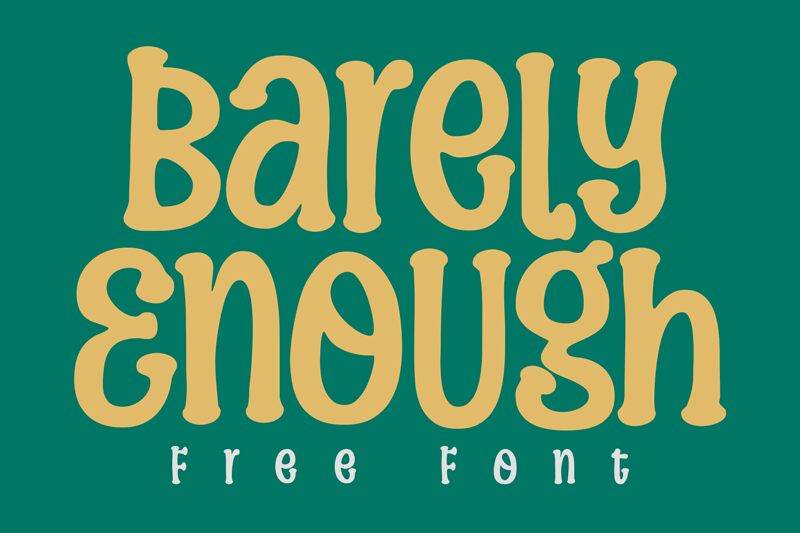
Barely Enough Regular
Barely Enough font is designed by Niskala Huruf. Whimsical and playful in every sense of the word, Barely Enough feels reminiscent of a more carefree spirit and simpler days of youth. As a bold handwritten display face, an informal style sets the friendly tone with slight variations in line widths that capture naive character and warmth in its rounded edges.
Use it for impactful designs on social media or templates such as greeting cards or add personality to headlines like billboards or posters. Ideal for applications in digital comics, advertisements, web design, and packaging to name just a few use cases where it will shine!